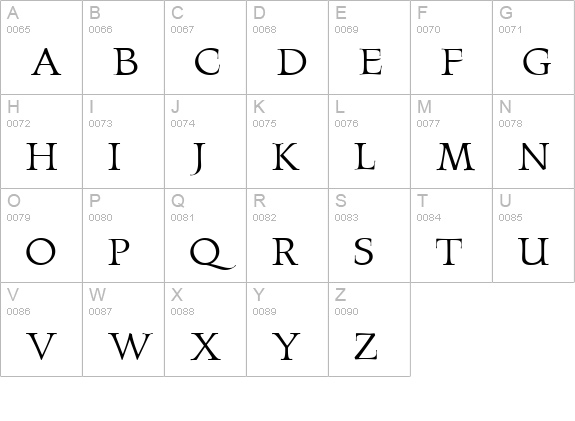
Latina MN is a beautifully crafted font that exudes elegance and sophistication. With its stylish curves and unique letterforms, this font is sure to make a statement in any design project. Whether you're creating a logo, designing a website, or working on a print project, Latina MN will add a touch of class and sophistication. The best part? Latina MN is completely free to download at FontsMarket.com. This means you can easily access this stunning font and incorporate it into your creative projects without any cost. So why wait? Download Latina MN today and elevate your designs with this gorgeous typeface.